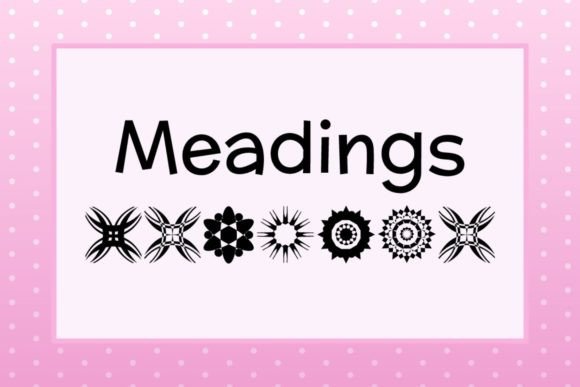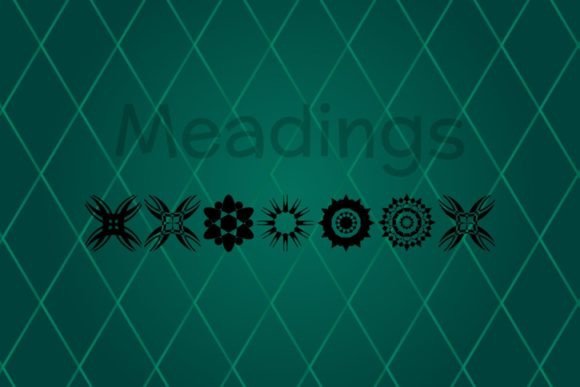
ABOUT MEADINGS FONT
“Meadings” is a captivating collection of doodles and icons that offers a unique set of stars and symbols. This font is designed to add an element of excitement and creativity to your work, allowing you to enhance your designs with interesting markings.
Created by Apostrophic Labs, “Meadings” provides a range of doodles and icons that can be used to complement various projects. Whether you’re designing posters, websites, social media graphics, or any other creative endeavor, this font offers a diverse selection of stars and symbols to add visual interest and personality to your work.
With “Meadings,” you have the opportunity to incorporate these delightful doodles and icons into your designs, creating a unique and eye-catching visual language. Explore the possibilities and let your imagination run wild with the exciting markings offered by “Meadings”!